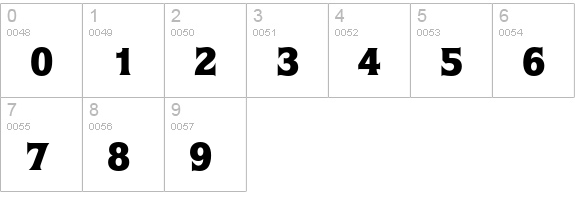
QuorumEF-Black Font Details
QuorumEF-Black is a maximum-weight, dramatic variant in the QuorumEF typeface family \xE2\x80\x94 well suited to maximum-impact headlines, posters, and packaging.
QuorumEF-Black font is a stunning display typeface that exudes elegance and sophistication. With its bold and commanding presence, this font is perfect for making a powerful statement in any design project. The strong and sturdy letterforms of QuorumEF-Black effortlessly capture attention and create a lasting impact. This font is meticulously crafted with attention to detail, ensuring each character is beautifully designed and harmoniously balanced. The thick and wide strokes of QuorumEF-Black add depth and dimension to any text, making it a versatile choice for various design applications. One of the most remarkable aspects of QuorumEF-Black font is that it is free! Yes, you heard it right – this remarkable typeface is freely available to download at FontsMarket.com. This means that you can enhance your design projects with this incredible font without any cost, allowing you to unleash your creativity without any limitations. QuorumEF-Black font offers a wide range of possibilities, from creating impactful headlines and titles to adding a touch of sophistication to logos and branding materials. Its versatility allows it to seamlessly blend into various design styles, whether it be modern and sleek or classic and timeless. Furthermore, QuorumEF-Black font is designed with readability in mind, ensuring that your text remains clear and legible even at smaller sizes. This makes it an excellent choice for both print and digital designs, enabling you to create stunning visuals across various platforms. With QuorumEF-Black font, you can effortlessly elevate your design projects and make a lasting impression. Its bold and powerful aesthetic, combined with its versatility and readability, make it a must-have font for designers and creatives alike. And the best part? It's free! So why wait? Download QuorumEF-Black font today at FontsMarket.com and unlock a world of design possibilities.